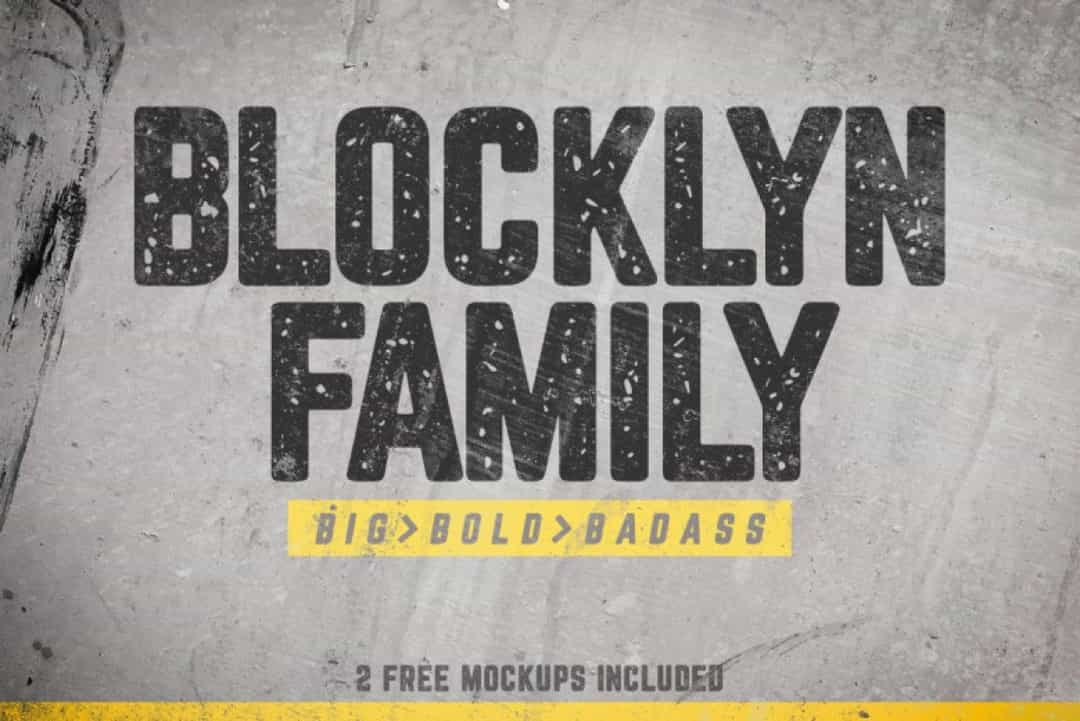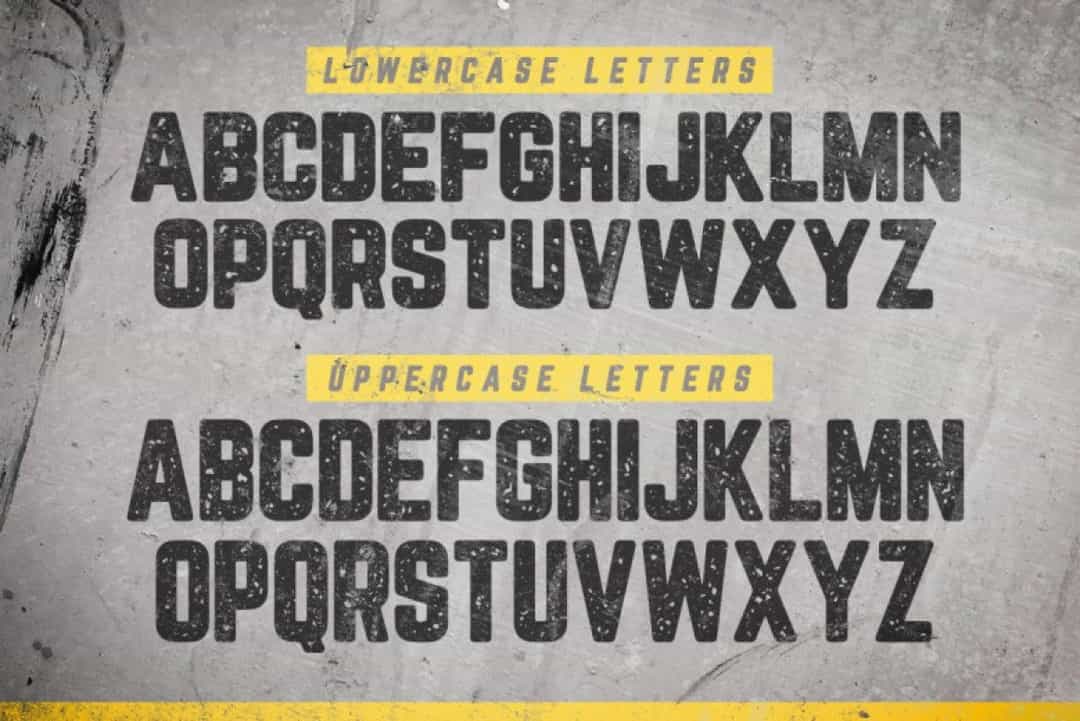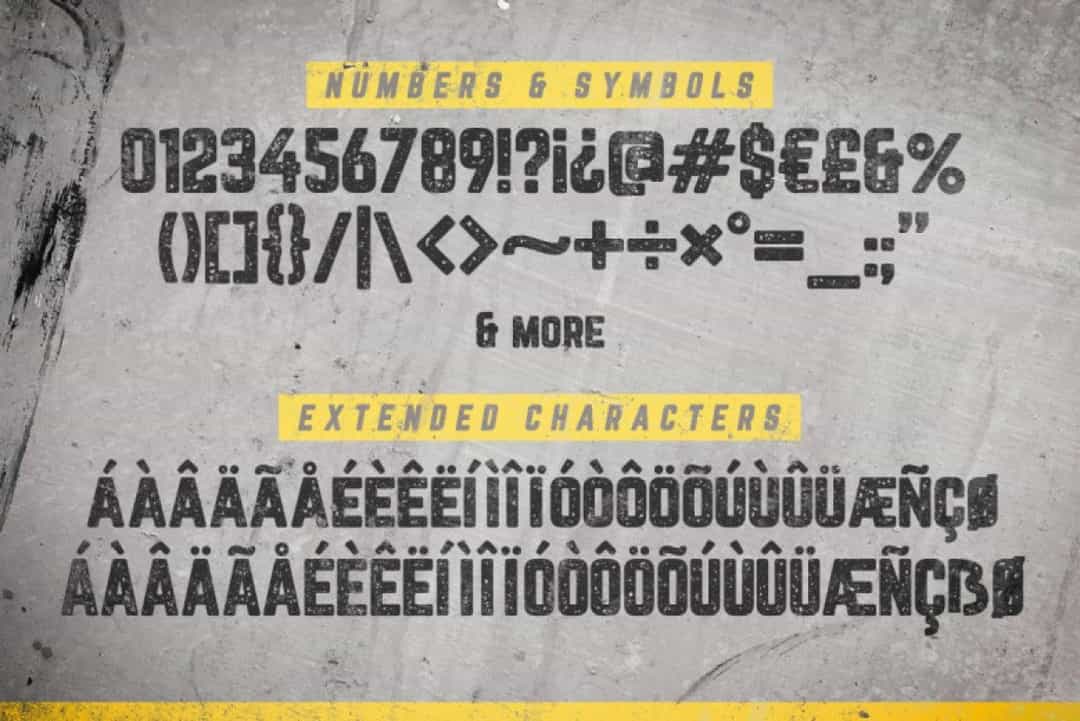
Blocklyn Font Family is an eye-catching font family designed to be bold, large and sensual without being limited to masculine designs. There are four fonts included with the package – Condensed Italic Condensed Grunge Grunge Italic fonts are included for maximum customization!